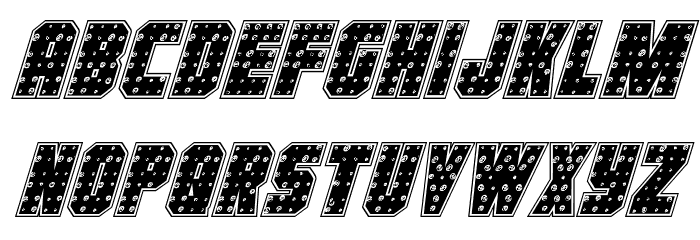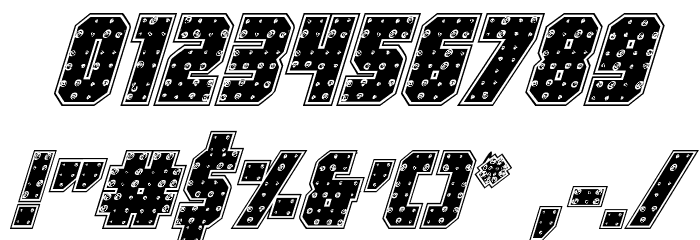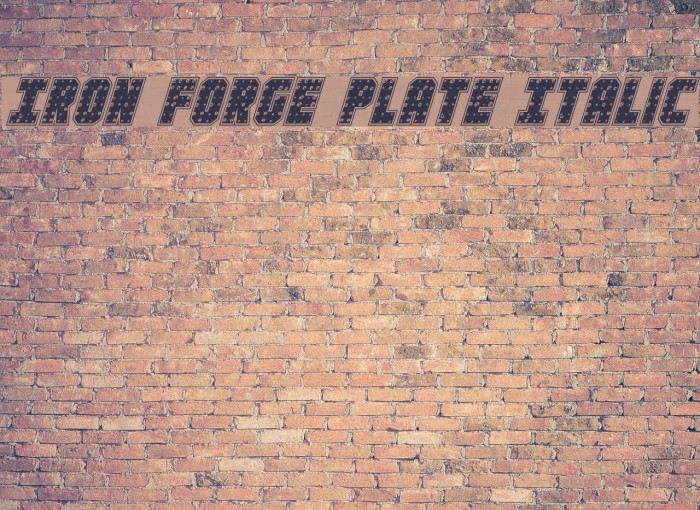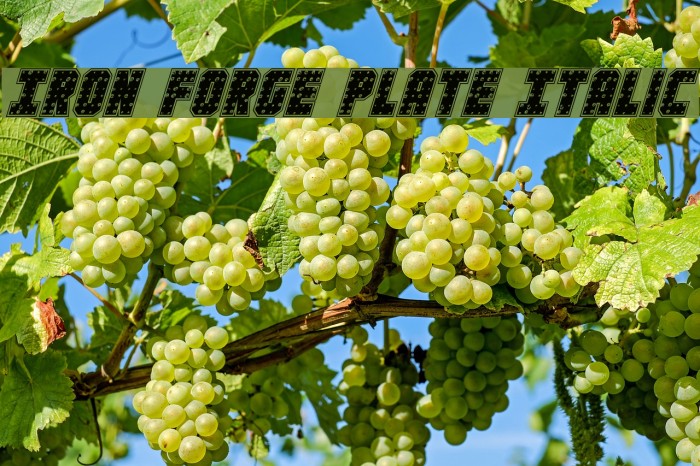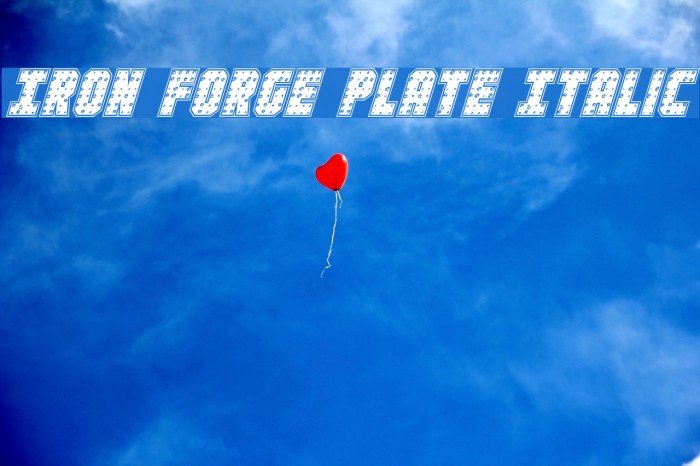
Iron Forge Plate Italic Font
This font features a bold, industrial design with a distinct italic slant, giving it a dynamic and forward-moving appearance. Each character is constructed with a riveted, metal plate look, reminiscent of ironwork or machinery, which adds a rugged and robust feel. The font maintains a consistent thickness throughout, with a high level of detail in the rivet patterns that decorate each letter and number. The characters are tightly spaced, enhancing the cohesive and solid appearance. This style is particularly eye-catching and suitable for projects that require a strong, mechanical aesthetic.
A bold, italic, industrial-style font with a riveted metal plate design.
- Proposed Projects: Ideal for use in industrial-themed branding, posters, video game graphics, or any project requiring a strong, mechanical look.
- Character Spacing: Tight
- Overall Style: Industrial, Decorative
- Use Case: Logos, Headlines, Posters